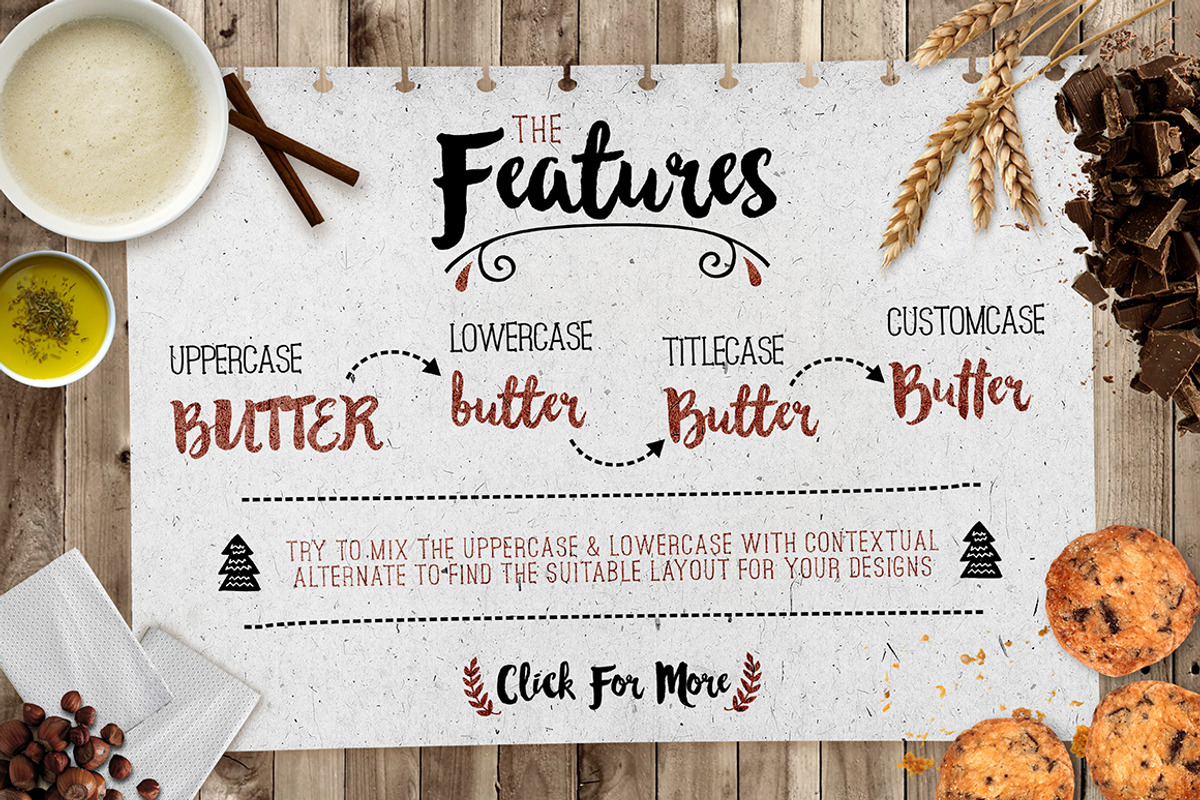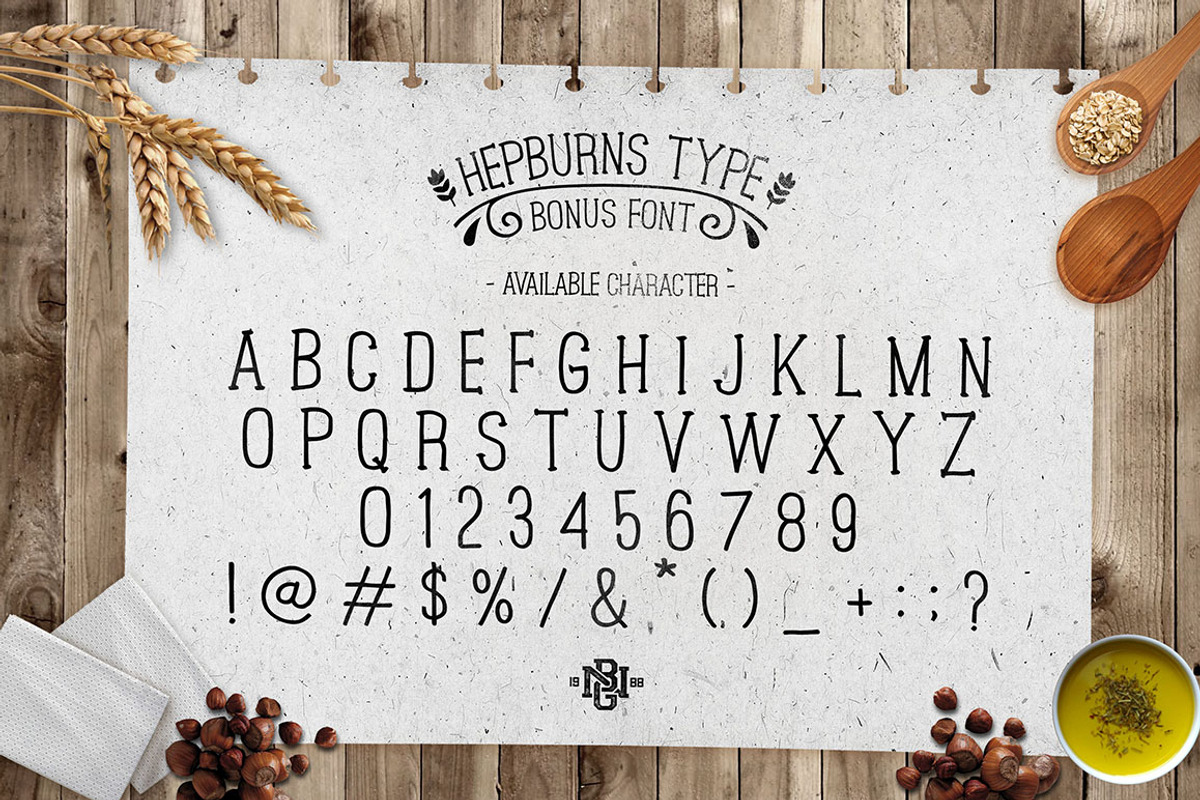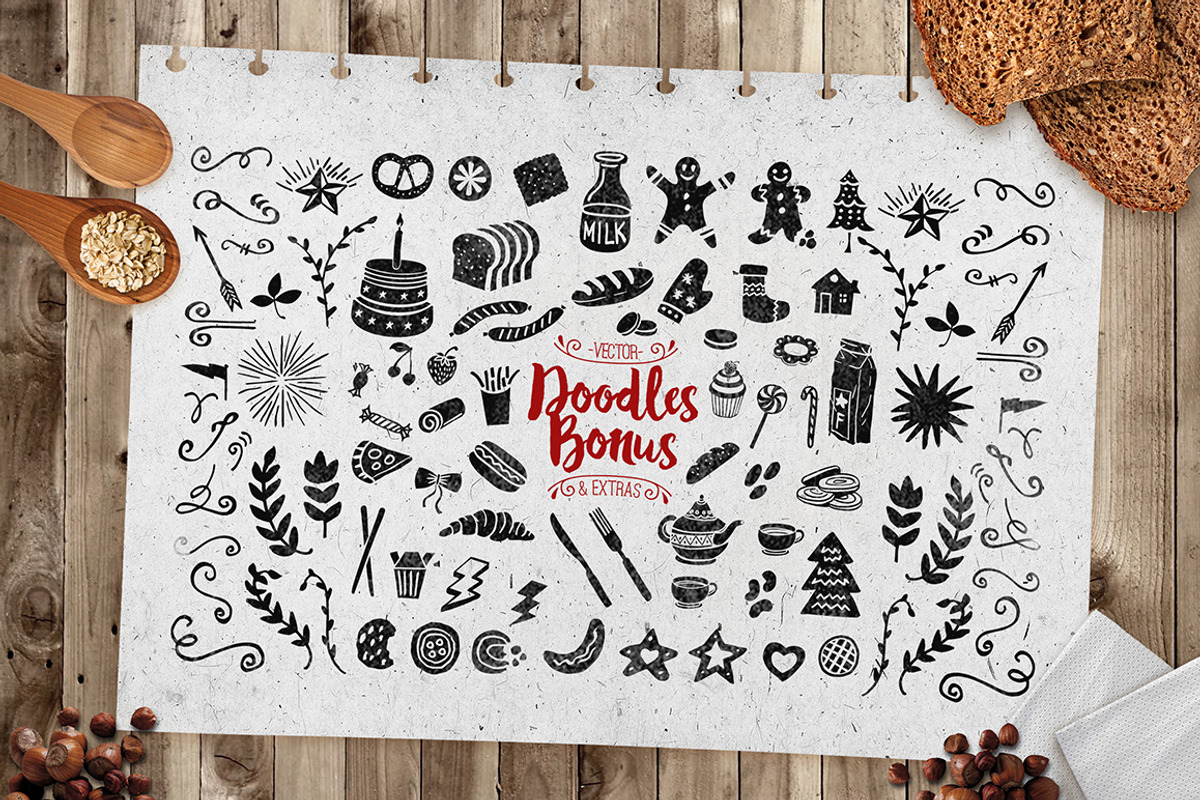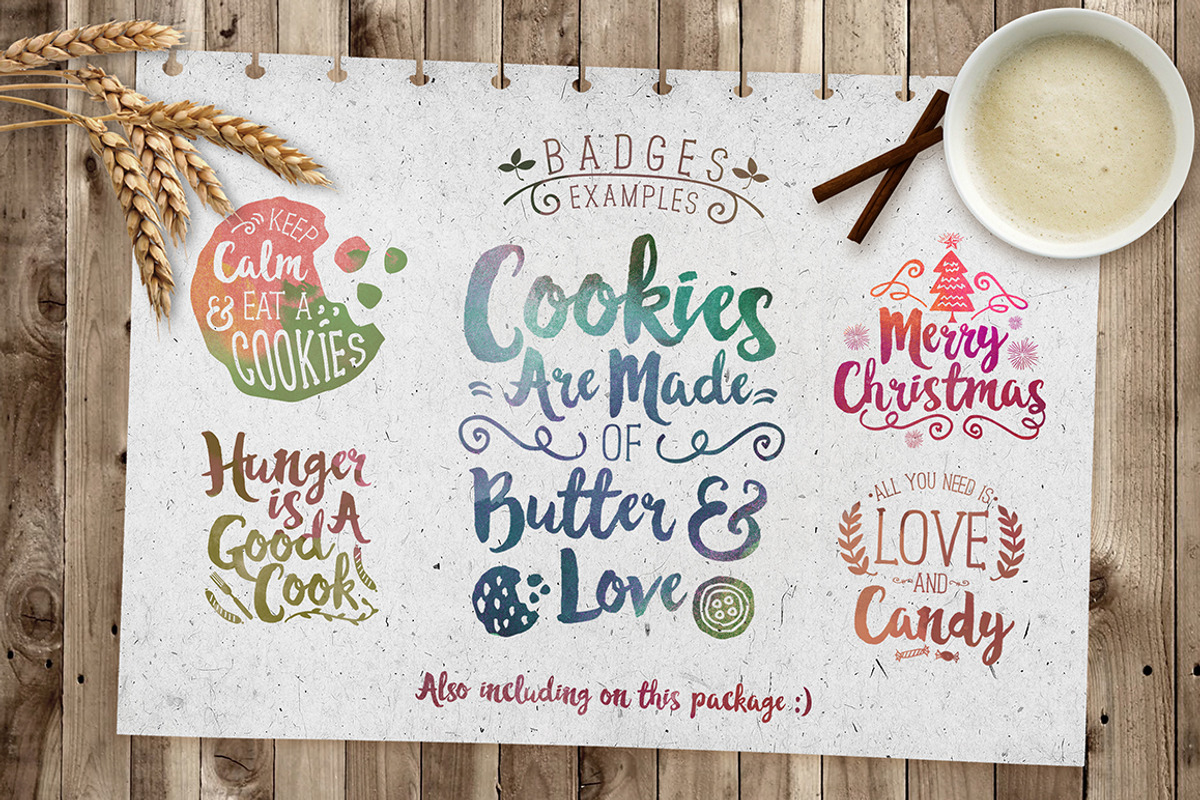
Hazelnut Typeface + Bonus Extras
Hazelnut Typeface + Bonus Extras by Heybing Supply Co. is a font selected for branding, posters, packaging, typography.
- The hazelnut typeface includes a full set of capital and lowercase letters, as well as multi-lingual support, currency figures, numerals, pu
Why Hazelnut Typeface + Bonus Extras is worth a look
Hazelnut Typeface + Bonus Extras by Heybing Supply Co. fits naturally into Branding, posters, packaging, typography.